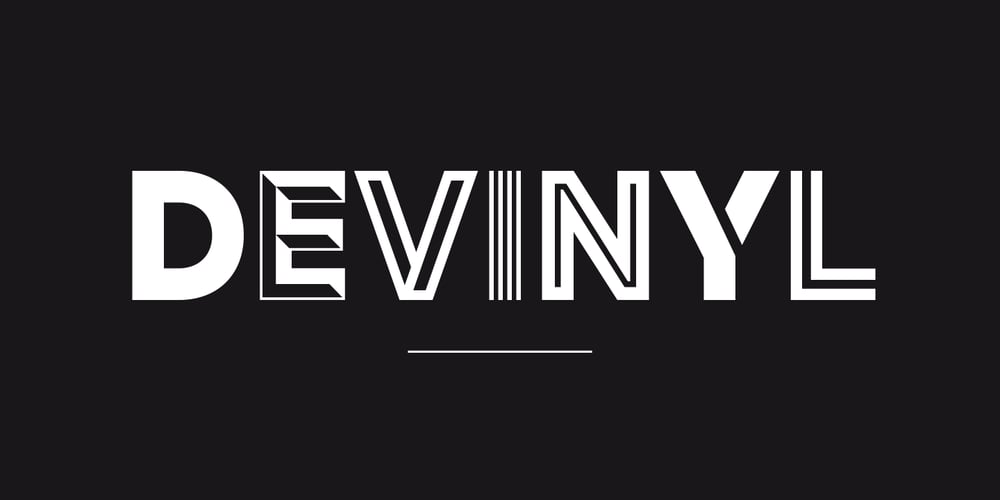
Devinyl
Devinyl font
Devinyl Font Family was designed by Nico Inosanto and published by Nootype. Devinyl contains 8 styles and family package options. Devinyl is a monolinear typeface family which mixes different styles. The typeface is entirely composed in capital. The uppercase is inspired by old grotesk from late 19th and the lowercase is a humanist-sans. This is a monoline typeface and the variety of style make it perfect for magazine and poster design. Download the PDF here. Devinyl comprises a family of 8 styles, from the art-deco inspired ‘line’ to the ‘stencil’, often used in street art. All the fonts share the same base.Devinyl family supports Latin and Cyrillic, all these languages are covered:Latin language support:Afrikaans, Albanian, Asturian, Azeri, Basque, Bosnian, Breton, Bulgarian, Catalan, Cornish, Corsican, Croatian, Czech, Danish, Dutch, English, Esperanto, Estonian, Faroese, Filipino, Finnish, Flemish, French, Frisian, Friulian, Gaelic, Galician, German, Greenlandic, Hungarian, Icelandic, Indonesian, Irish, Italian, Kurdish, Latin, Latvian, Lithuanian, Luxembourgish, Malagasy, Malay, Maltese, Maori, Moldavian, Norwegian, Occitan, Polish, Portuguese, Provençal, Romanian, Romansch, Saami, Samoan, Scots, Scottish, Serbian, Slovak, Slovenian, Spanish, Swahili, Swedish, Tagalog, Turkish, Walloon, Welsh, WolofCyrillic language support:Adyghe, Avar, Belarusian, Bulgarian, Buryat, Chechen, Erzya, Ingush, Kabardian, Kalmyk, Karachay-Balkar, Karakalpak, Kazakh, Komi, Kyrgyz, Lak, Macedonian, Moldovan, Mongol, Permyak, Russian, Rusyn, Serbian, Tatar, Tofa, Tuvan, Ukrainian, Uzbek